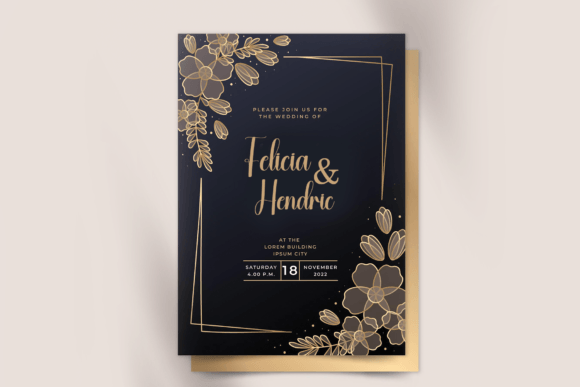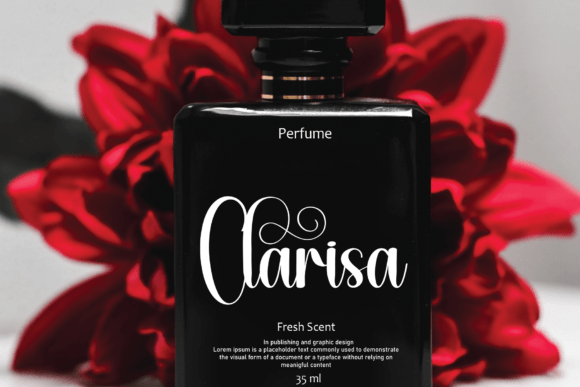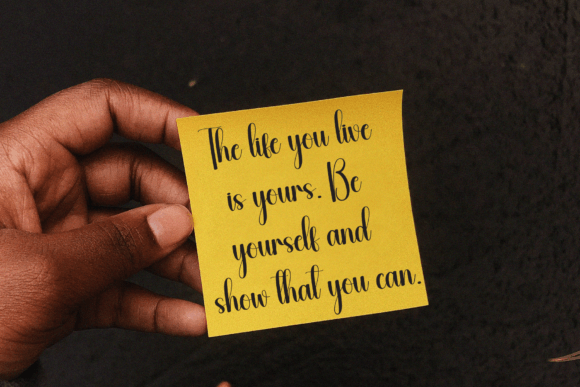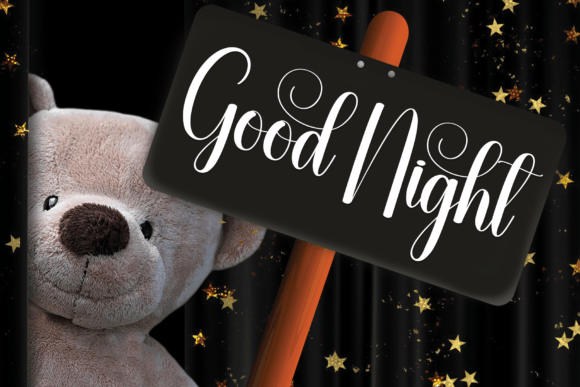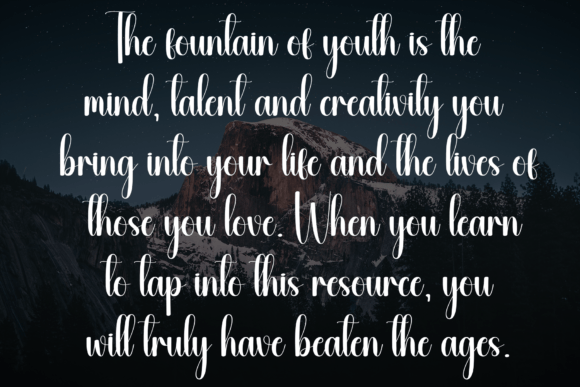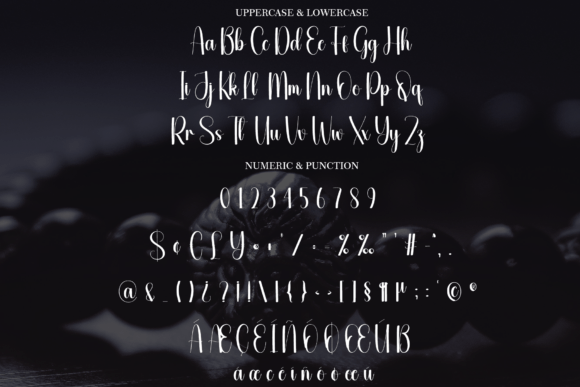
As a designer, have you ever been stuck on a project and needed a spark of creativity to bring your ideas to life? It’s a feeling we’ve all been there, staring at our screens, wondering what that one missing element is. For me, it’s often a font that sets the tone and brings a smile to the viewer’s face.
Enter the delightful Blackbracelet Font – a sweet and friendly handwritten font that’s perfect for adding a touch of whimsy to your designs. With its cute and fun aesthetic, it’s ideal for writing wedding invitations, cards, or any other design that needs a playful twist. Whether you’re a seasoned pro or just starting out, Blackbracelet Font is a valuable addition to any designer’s toolkit, offering a unique and charming way to connect with your audience.
Blackbracelet Font Key Features
- Font Family: Blackbracelet is a unique display font designed to evoke a sense of elegance and sophistication.
- Unique Characteristics: Blackbracelet features a distinctive, flowing script style with intricate details and subtle flourishes, making it perfect for adding a touch of luxury and sophistication to designs.
- Font Weight: Offers a range of font weights, from Light to Extra Bold, allowing designers to customize the font’s appearance to suit their specific needs.
Blackbracelet Font Review
I recently had the chance to work with the Blackbracelet Font, and I must say it’s a unique and intriguing addition to any design project. Here are my thoughts on what works well and what doesn’t.
- Highly customizable: The font has a wide range of styles and weights, making it perfect for projects where you need to convey a sense of elegance and sophistication.
- Unique aesthetic: The font’s design is unlike anything I’ve seen before, and it adds a touch of modernity to any project.
- Legibility: Despite its unusual design, the font is surprisingly easy to read, even at smaller sizes.
- Limited support: Unfortunately, the font doesn’t support many languages, which can be a major drawback for projects that require multilingual support.
- Difficulty with kerning: I found that the font can be challenging to work with when it comes to kerning, which can affect the overall look of your design.
Overall, I think the Blackbracelet Font is a great addition to any design project that requires a touch of elegance and sophistication. However, its limitations may make it less suitable for projects that require extensive language support or precise kerning.
Tips for Getting the Most Out of Blackbracelet Font
Use Blackbracelet Font for creative and artistic projects, such as invitations, posters, and social media graphics. Experiment with different font sizes and colors to create visually appealing designs.
Blackbracelet Font is commonly used for:
– Creative and artistic projects
– Social media graphics and advertisements
– Invitations and event promotions
– Personal branding and logos
Alternatives to Blackbracelet Font for Designers
Bebas Neue is a modern sans-serif font designed for digital use. It’s ideal for use in headings, titles, and other display text where a clean and minimalist look is desired.
Compared to Blackbracelet Font, Bebas Neue has a more contemporary feel and is better suited for digital applications. It’s also more versatile and can be used in a wider range of contexts.
Ostrich Sans is a sans-serif font with a unique, geometric feel. It’s perfect for use in logos, branding, and other design elements where a distinctive look is required.
Ostrich Sans has a more dramatic and attention-grabbing feel compared to Blackbracelet Font, making it ideal for use in high-impact designs. However, it may not be as readable in large blocks of text.